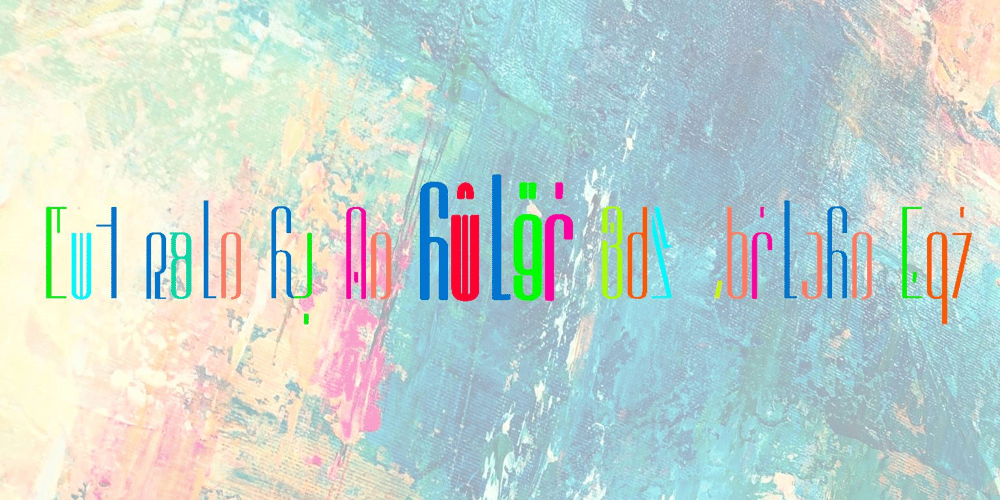
Naghosh Font Family was designed by Aria Fakhari and published by Fakharia. Naghosh contains 2 styles and family package options. Naghosh (نقاش, Painter) is a font family designed to support naghashi, featuring five distinct styles. The initial two, namely naghosh light and naghosh LP light, represent classical Arabic typefaces. In all styles, modifications have been made to the shapes of capital (isolated) letters to engender a more consistent aesthetic.The naghosh LP (Less Point) light is the only dot-reduced style in this font family, where glyphs with two or more dots are replaced with a new dotless shape.The naghosh MC (Mixed Case) light emulates Latin fonts, enabling typists to toggle between lowercase and uppercase letters through a software shift key. This software shift feature can be activated or deactivated by inputting two consecutive Alef_Hamza_above/Alef_Hamza_below letters. more…The final two styles consist of the Small Caps (naghosh SC light) and All Caps (naghosh AC light) versions within this font family.The Latin component of this typeface family is the vibrant, monospaced iteration of the Dorsa font.